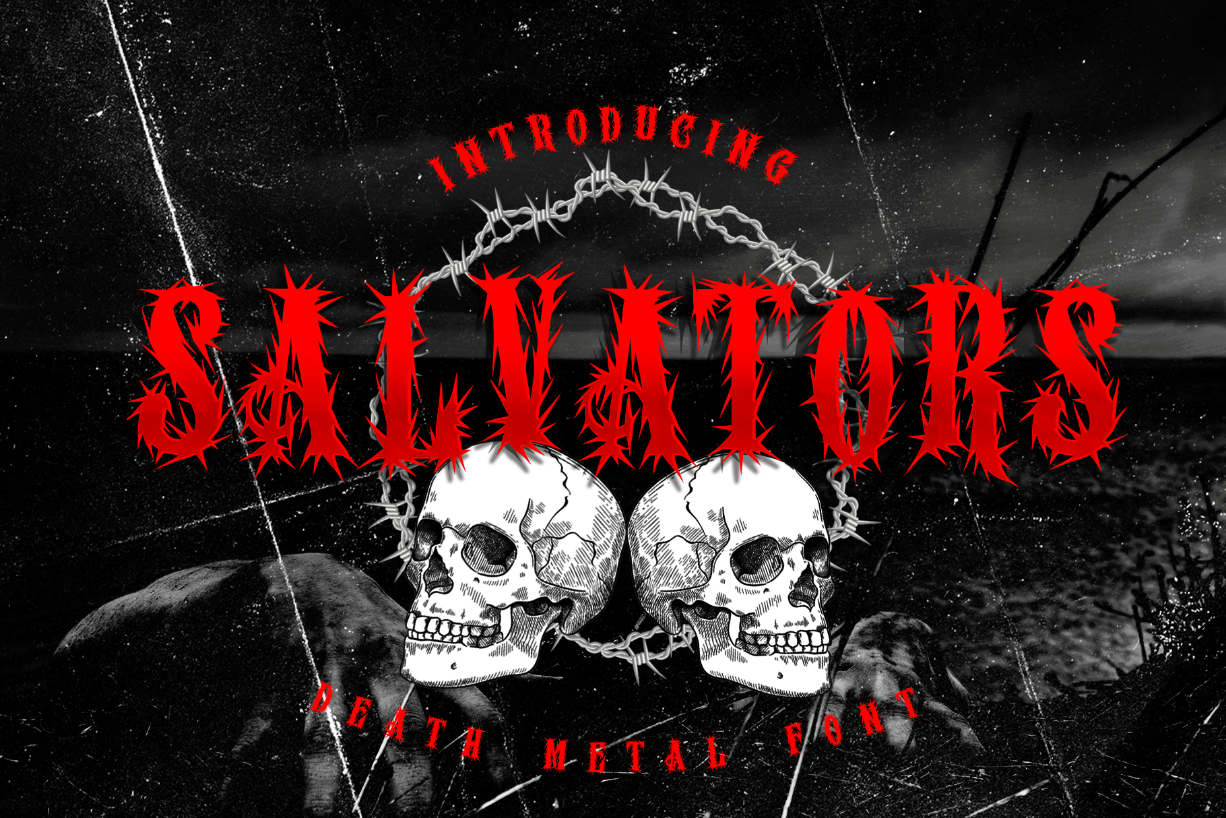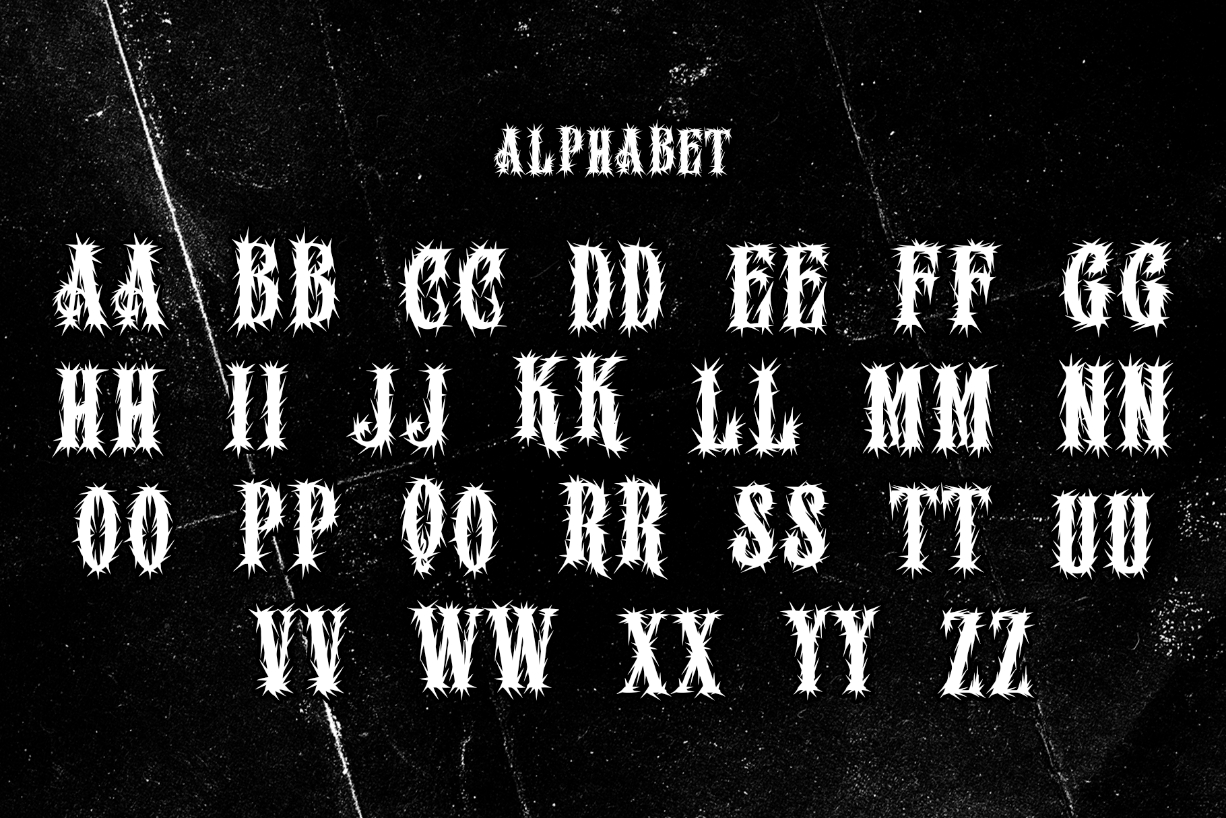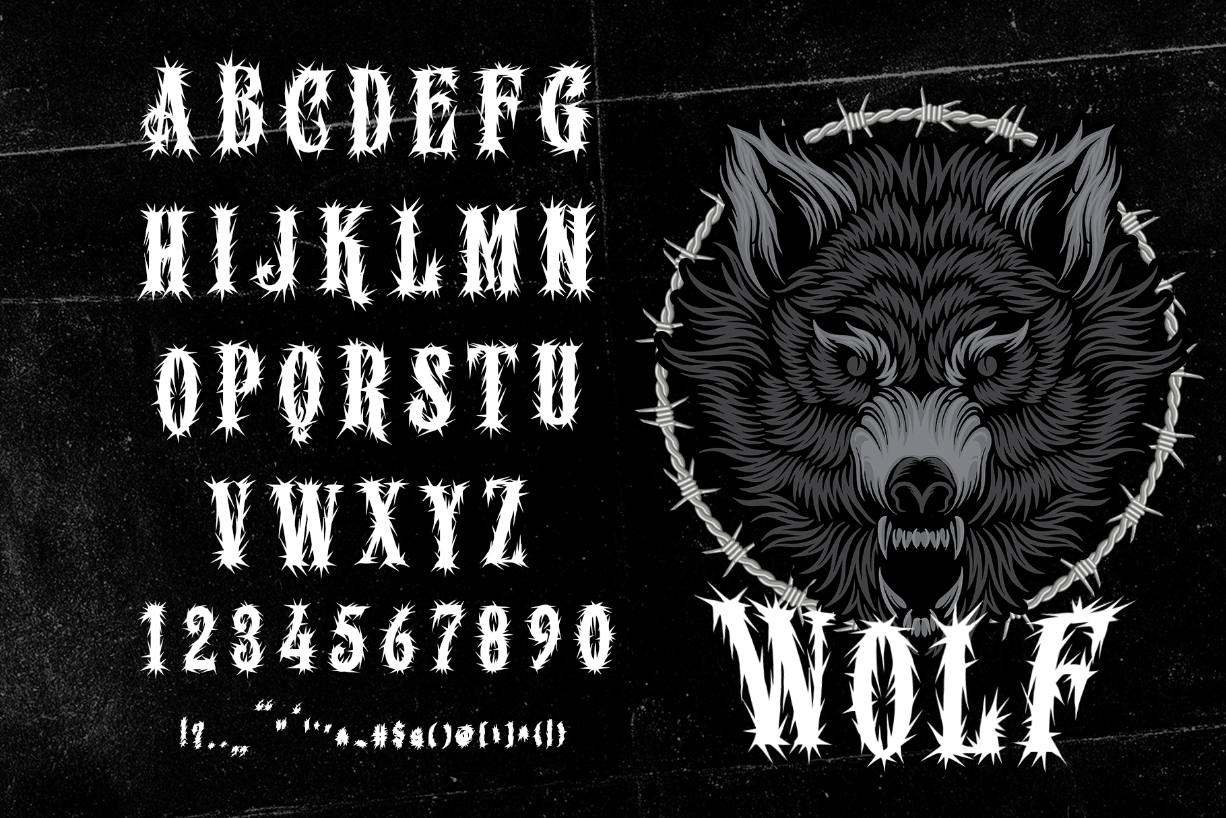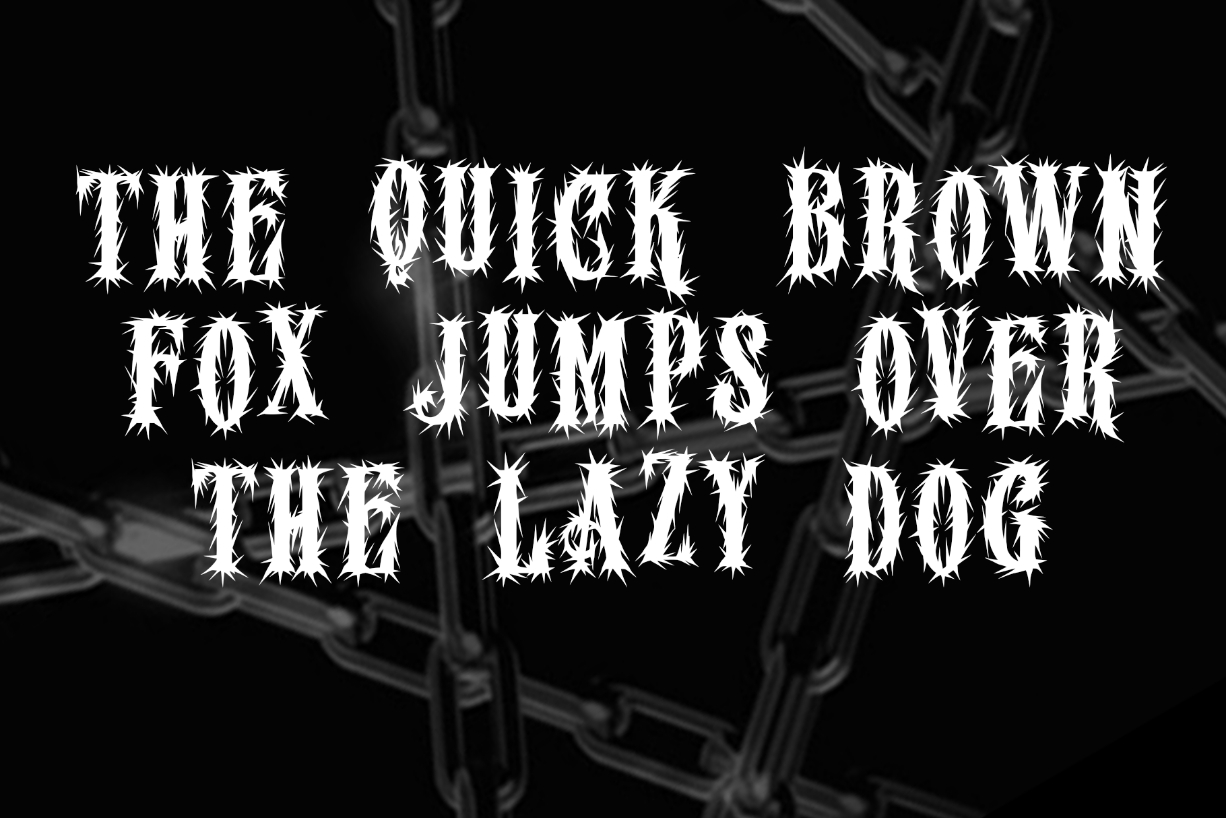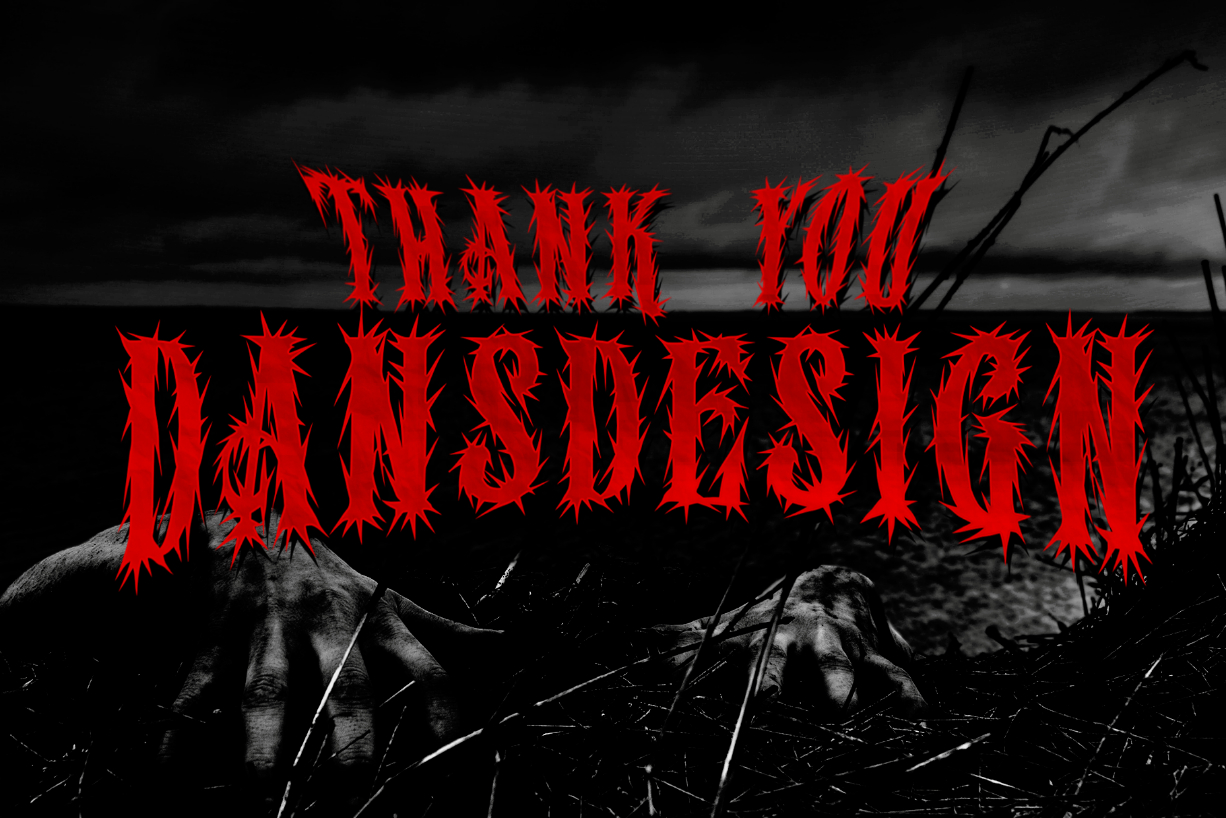
Salvators Font
About Salvators Font
Salvators is an incredibly cool and unique display font. It has a modern yet influential style and it will completely add an unforgettable touch to your project ideas.